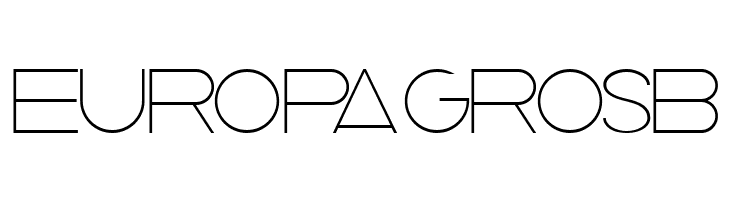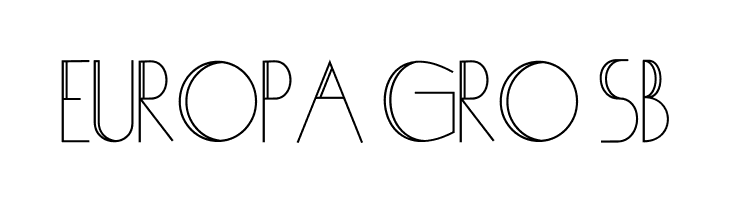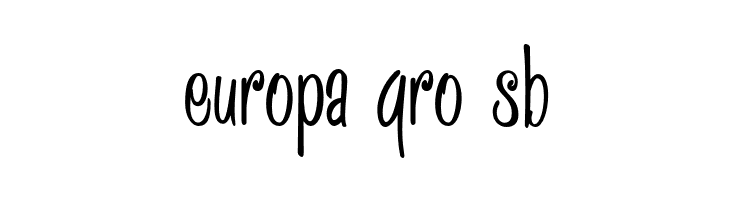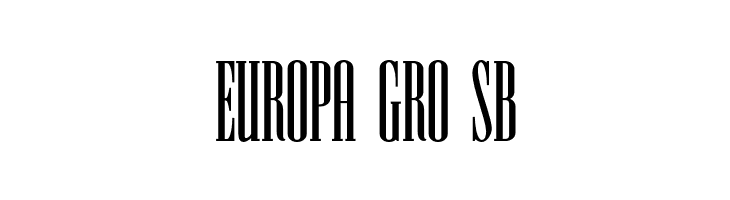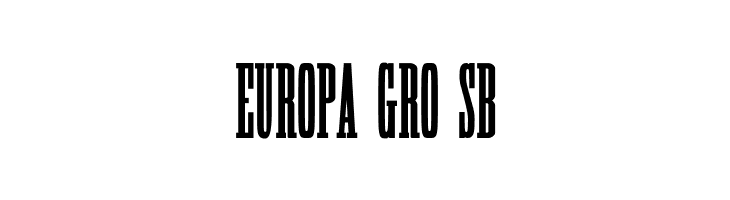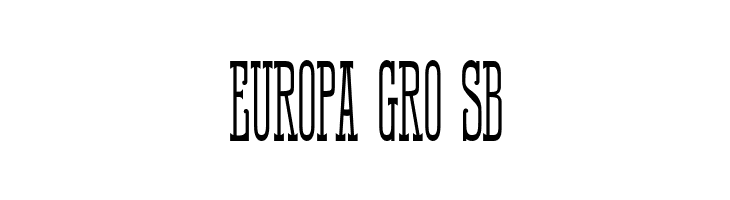
A modern, geometric font with tall, narrow letterforms and a clean aesthetic.
A modern, geometric font with tall, narrow characters and consistent stroke width.
A modern, geometric font with a tall, narrow structure and consistent stroke width.
A geometric, art deco-inspired font with tall, narrow letterforms and sharp angles.
A playful handwritten font with tall, narrow letters and a casual style.
A bold, high-contrast font with tall, narrow characters and elongated serifs.
A tall, narrow, and bold font with tight spacing and a modern aesthetic.
A bold, condensed font with tall, narrow characters for dramatic impact.
A bold, decorative font with tall, narrow characters and pronounced serifs.